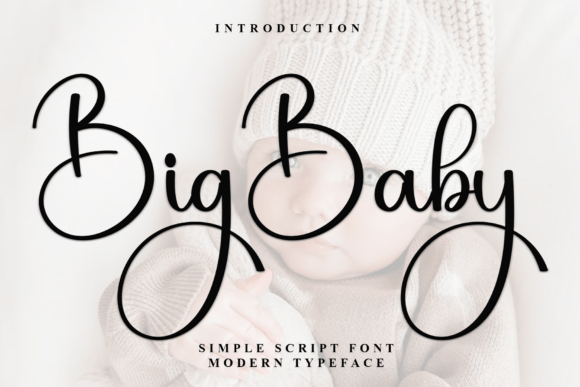
The Big Baby Font: A Casual and Creative Companion for Designers
I’ll never forget the time I was working on a project for a client’s baby shower invitation. I had a clear vision of a warm, playful, and inviting design, but I was struggling to find the perfect font to match. That’s when I stumbled upon Big Baby Font, and it instantly became the star of the show. In this article, I’ll share my experience with Big Baby Font, its features, and how to make the most of it in your designs.
A Personal Review: What I Love About Big Baby Font
Big Baby Font is a casual and creative font that exudes warmth and friendliness. Here are some things I love about it:
- ✨ Round, playful strokes that create a relaxed and approachable feel
- ✅ Charming, hand-drawn aesthetic that adds a fun and unique touch to any design
- 🔥 Perfect for personal projects, invitations, and social media graphics
While Big Baby Font is an amazing addition to any design project, there are a few things to keep in mind:
- 🤔 Limited use in formal or professional designs, as it may come across as too casual
- ⚠️ May not be suitable for very small font sizes, as some details may get lost
Big Baby Font was designed with the intention of creating a warm and inviting font that would make designs feel more approachable. The designer, inspired by hand-drawn lettering and playful typography, crafted Big Baby Font to be a versatile and creative companion for designers.
| What is Big Baby Font best used for? | Big Baby Font is perfect for personal projects, invitations, and social media graphics. |
| Is Big Baby Font suitable for formal designs? | No, Big Baby Font is a casual and creative font that may not be suitable for formal or professional designs. |